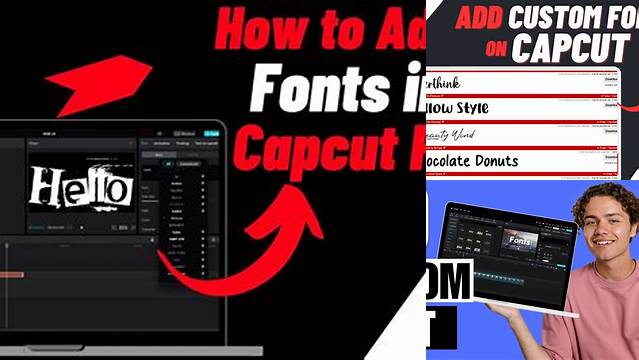
Add Custom Fonts To CapCut PC: A Simple Guide
Why Use Custom Fonts in CapCut?
So, why bother with custom fonts at all? Well, the default fonts in any video editing software, including CapCut, are, well, default. They're functional, sure, but they often lack the personality and uniqueness that can truly make your video stand out. Think of fonts as the voice of your visuals. A bold, impactful font can command attention, while an elegant script font can add a touch of sophistication. The right font can reinforce your message, enhance your brand identity, and ultimately, make your videos more engaging and memorable.
Custom fonts allow you to:
- Express your unique style: Ditch the generic fonts and choose typefaces that truly reflect your creative vision. Whether you're going for a playful, modern, or classic look, there's a font out there that perfectly matches your aesthetic.
- Enhance your brand identity: If you're creating content for a brand, using consistent fonts across all your videos helps build brand recognition and reinforces your visual identity. Imagine using the same iconic font as your logo in your video titles – instant brand cohesion!
- Improve viewer engagement: A well-chosen font can make your text more readable and visually appealing, keeping viewers hooked. A boring font, on the other hand, can be a major turn-off.
- Add personality and emotion: Fonts have the power to evoke emotions. A bold, sans-serif font might convey a sense of urgency or excitement, while a delicate, handwritten font can create a feeling of warmth and intimacy. Custom fonts allow you to tap into this emotional power and add depth to your storytelling.
- Stand out from the crowd: In a sea of videos, using unique fonts can help your content grab attention and make a lasting impression. It's a simple way to elevate your videos and set them apart from the competition.
In short, custom fonts are a game-changer for video editing. They're a powerful tool for self-expression, branding, and viewer engagement. If you're serious about creating professional-looking videos, adding custom fonts to CapCut is a must.
- DaFont: DaFont is another popular website offering a huge selection of free fonts. While the quality can vary, DaFont is a great place to find unique and creative fonts that you won't find anywhere else. Be sure to check the license agreement for each font before using it in a commercial project, as some fonts are only free for personal use. DaFont's extensive library makes it a great resource for finding niche or decorative fonts that can add a special touch to your videos. Remember to always respect the font licenses and give credit to the creators when necessary.
- Font Squirrel: If you're looking for free fonts that are licensed for commercial use, Font Squirrel is your best bet. This website curates a selection of high-quality, free-for-commercial-use fonts, making it a safe and reliable option for professional projects. Font Squirrel's focus on commercial-use fonts ensures you can use them without worrying about copyright issues. The site also offers a handy font identifier tool, allowing you to upload an image of a font and find similar options. This can be incredibly useful if you're trying to match a specific style or find a replacement for a licensed font.
- Adobe Fonts: If you're an Adobe Creative Cloud subscriber, you have access to a massive library of fonts through Adobe Fonts. This service offers thousands of fonts, all of which are licensed for commercial use. Adobe Fonts integrates seamlessly with Adobe Creative Cloud apps, including CapCut (if you're using CapCut on a device that supports Adobe integration), making it incredibly convenient to use. The subscription-based model allows you to access a vast collection of professionally designed fonts, ensuring your projects always look polished and professional. Adobe Fonts is an excellent option for those already invested in the Adobe ecosystem, providing a seamless and comprehensive font library.